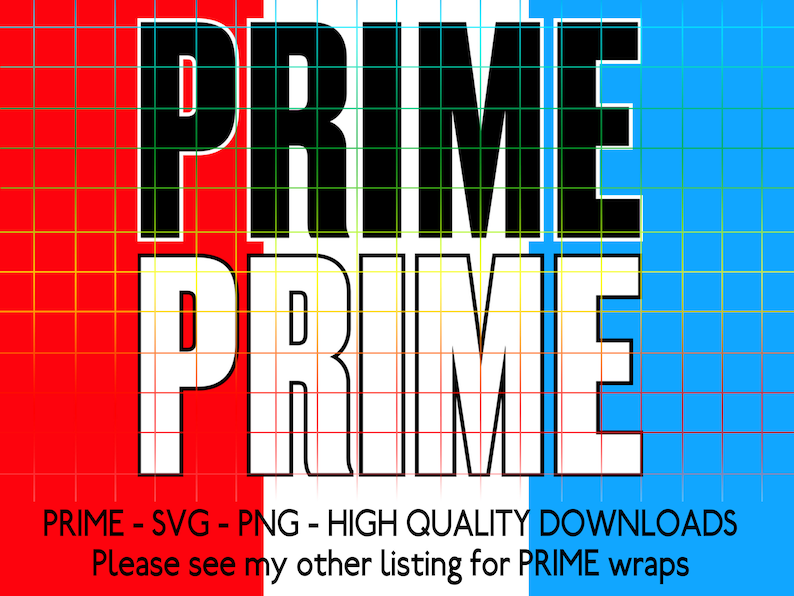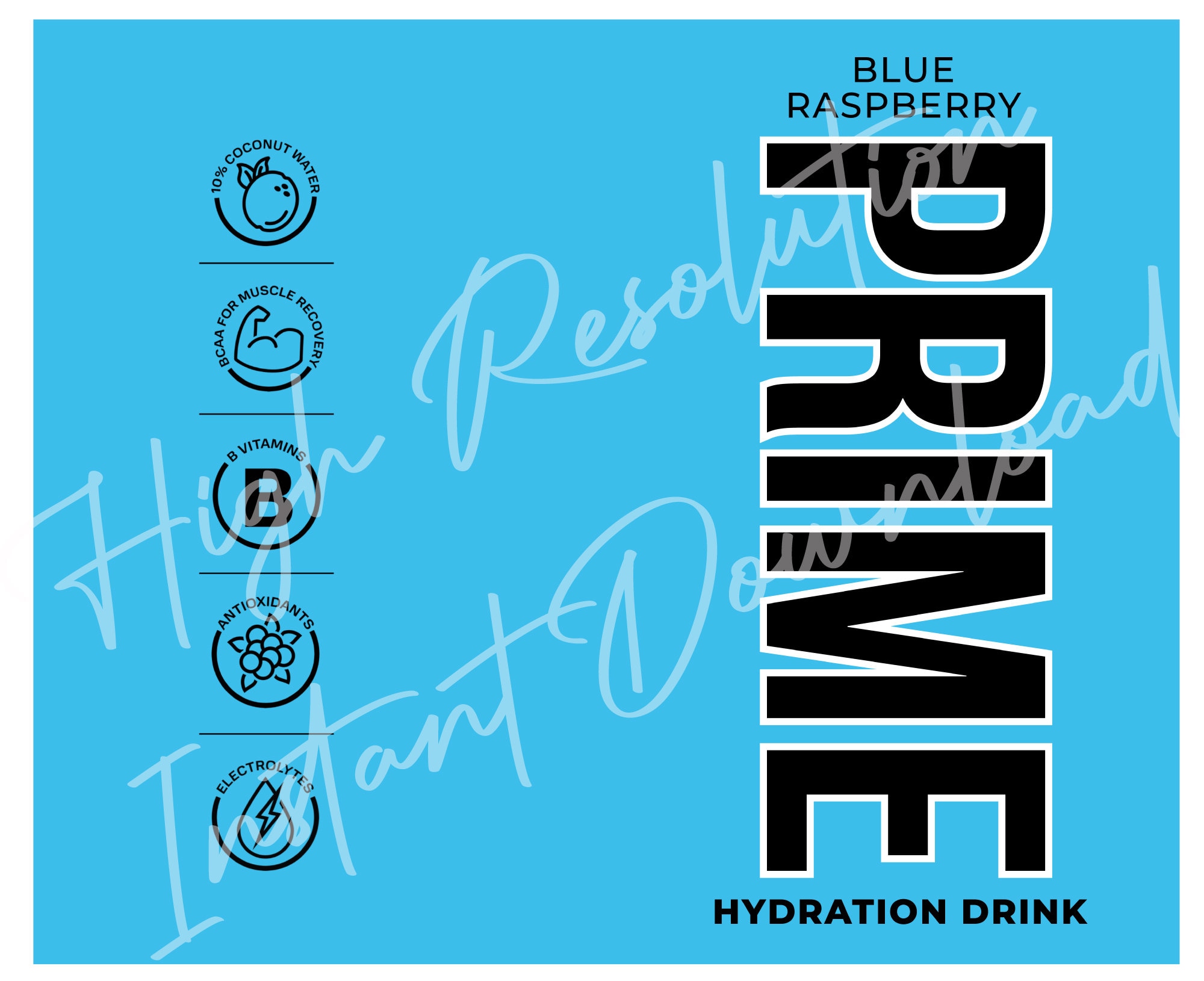
Prime Hydration Font
Prime Hydration Font - Looks close to a version of knockout to me. Learn about the fonts used in the prime logo, a sports drink brand by prime hydration. The font used by prime hydration looks sleek, modern, and perfectly aligns with. The font used by prime hydration looks sleek, modern, and perfectly aligns with the brand’s. Prime font | dafont.com english français español deutsch italiano português. Anyone know this one for prime hydration?
Anyone know this one for prime hydration? The font used by prime hydration looks sleek, modern, and perfectly aligns with. Prime font | dafont.com english français español deutsch italiano português. The font used by prime hydration looks sleek, modern, and perfectly aligns with the brand’s. Learn about the fonts used in the prime logo, a sports drink brand by prime hydration. Looks close to a version of knockout to me.
Anyone know this one for prime hydration? Prime font | dafont.com english français español deutsch italiano português. Learn about the fonts used in the prime logo, a sports drink brand by prime hydration. The font used by prime hydration looks sleek, modern, and perfectly aligns with the brand’s. The font used by prime hydration looks sleek, modern, and perfectly aligns with. Looks close to a version of knockout to me.
Looks close to a version of knockout to me. The font used by prime hydration looks sleek, modern, and perfectly aligns with. Learn about the fonts used in the prime logo, a sports drink brand by prime hydration. The font used by prime hydration looks sleek, modern, and perfectly aligns with the brand’s. Prime font | dafont.com english français español.
Prime font | dafont.com english français español deutsch italiano português. Learn about the fonts used in the prime logo, a sports drink brand by prime hydration. Looks close to a version of knockout to me. The font used by prime hydration looks sleek, modern, and perfectly aligns with. Anyone know this one for prime hydration?
Looks close to a version of knockout to me. Prime font | dafont.com english français español deutsch italiano português. The font used by prime hydration looks sleek, modern, and perfectly aligns with the brand’s. Anyone know this one for prime hydration? The font used by prime hydration looks sleek, modern, and perfectly aligns with.
Anyone know this one for prime hydration? The font used by prime hydration looks sleek, modern, and perfectly aligns with the brand’s. Learn about the fonts used in the prime logo, a sports drink brand by prime hydration. The font used by prime hydration looks sleek, modern, and perfectly aligns with. Prime font | dafont.com english français español deutsch italiano.
Prime font | dafont.com english français español deutsch italiano português. The font used by prime hydration looks sleek, modern, and perfectly aligns with. Looks close to a version of knockout to me. The font used by prime hydration looks sleek, modern, and perfectly aligns with the brand’s. Learn about the fonts used in the prime logo, a sports drink brand.
The font used by prime hydration looks sleek, modern, and perfectly aligns with. Looks close to a version of knockout to me. Learn about the fonts used in the prime logo, a sports drink brand by prime hydration. Anyone know this one for prime hydration? The font used by prime hydration looks sleek, modern, and perfectly aligns with the brand’s.
Looks close to a version of knockout to me. Prime font | dafont.com english français español deutsch italiano português. Anyone know this one for prime hydration? The font used by prime hydration looks sleek, modern, and perfectly aligns with the brand’s. The font used by prime hydration looks sleek, modern, and perfectly aligns with.
The font used by prime hydration looks sleek, modern, and perfectly aligns with the brand’s. Learn about the fonts used in the prime logo, a sports drink brand by prime hydration. The font used by prime hydration looks sleek, modern, and perfectly aligns with. Anyone know this one for prime hydration? Prime font | dafont.com english français español deutsch italiano.
Prime font | dafont.com english français español deutsch italiano português. The font used by prime hydration looks sleek, modern, and perfectly aligns with the brand’s. Looks close to a version of knockout to me. The font used by prime hydration looks sleek, modern, and perfectly aligns with. Learn about the fonts used in the prime logo, a sports drink brand.
Looks Close To A Version Of Knockout To Me.
Anyone know this one for prime hydration? The font used by prime hydration looks sleek, modern, and perfectly aligns with. Learn about the fonts used in the prime logo, a sports drink brand by prime hydration. Prime font | dafont.com english français español deutsch italiano português.